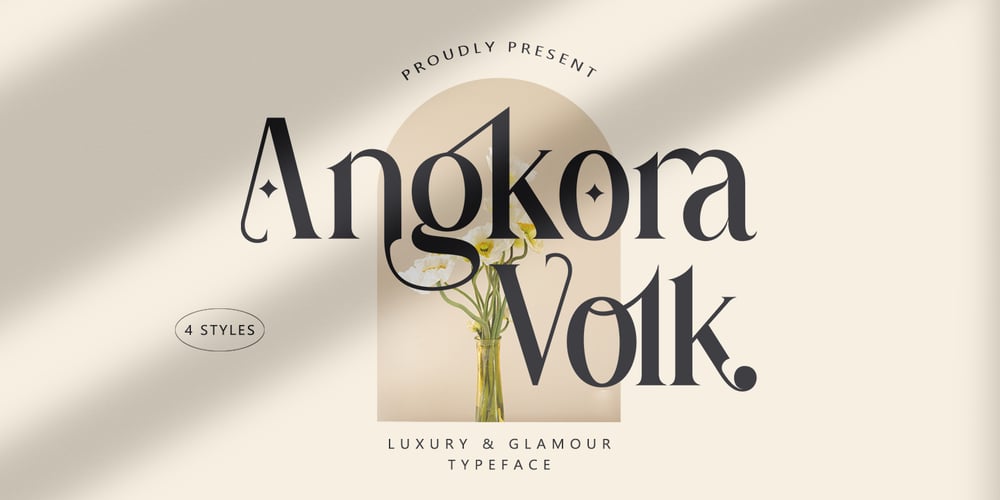
Angkora Volk
Angkora Volk font
Angkora Volk Font Family was designed by Muhajir and published by Skinny Type. Angkora Volk contains 4 styles and family package options. Angkora Volk – a stylish OpenType rich serif with letters that seem to dance and swirl in harmony – to form a unique & elegant typographic design.A large selection of interwoven Opentype binders and replacements, meaning lots of choice and variety in your final look.To access these OpenType features, you need Opentype-enabled software such as: Word, Textedit, Photoshop, Sketch, Pages, Keynote, Numbers, iBooks Author, QuarkXPress, Indesign and Illustrator.A wide variety of useful glyphs are included – see preview images of all glyphs.Angkora Volk also includes the full set:-uppercase and lowercase letters-multilingual symbols-number-punctuation-alternative style-fastener